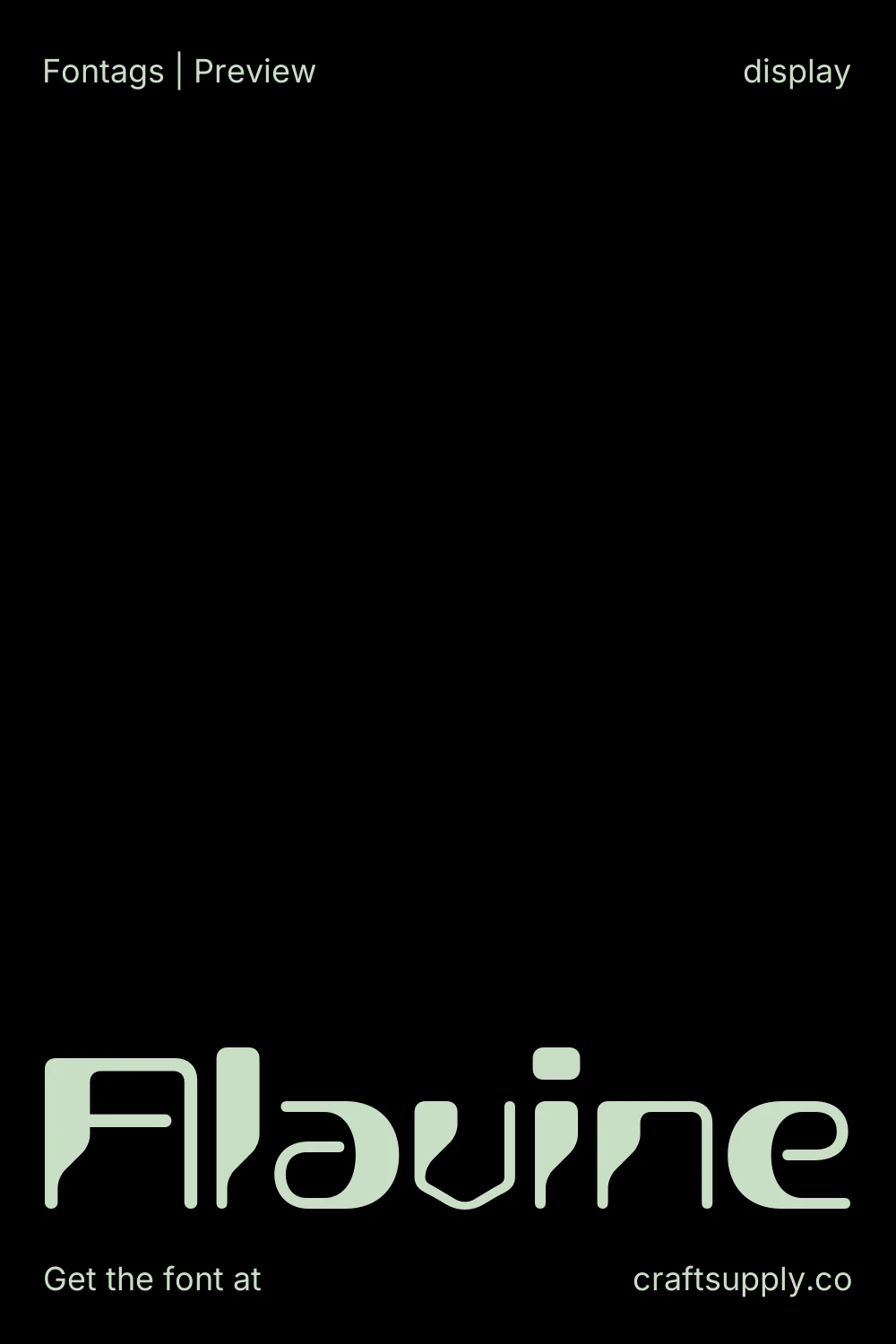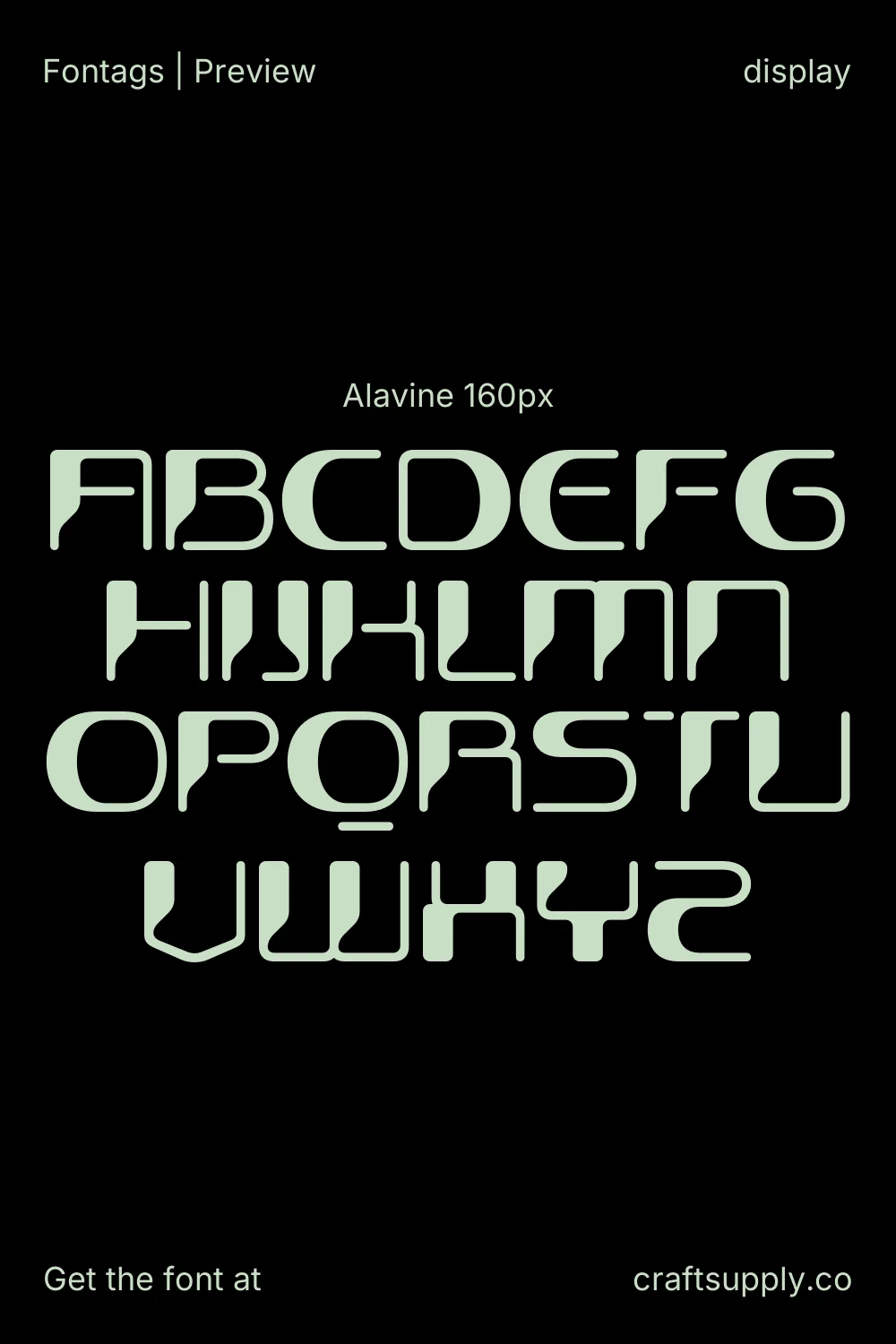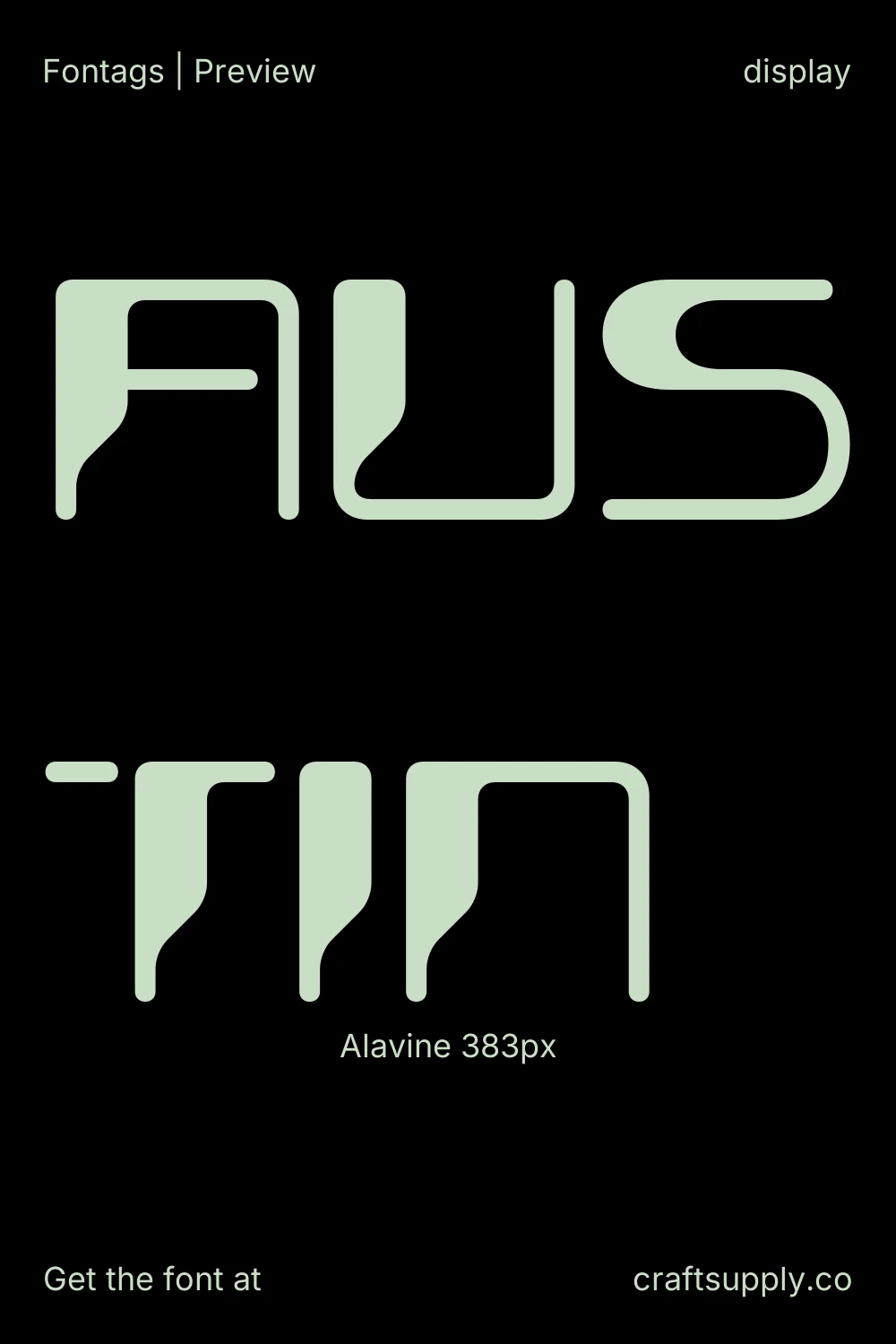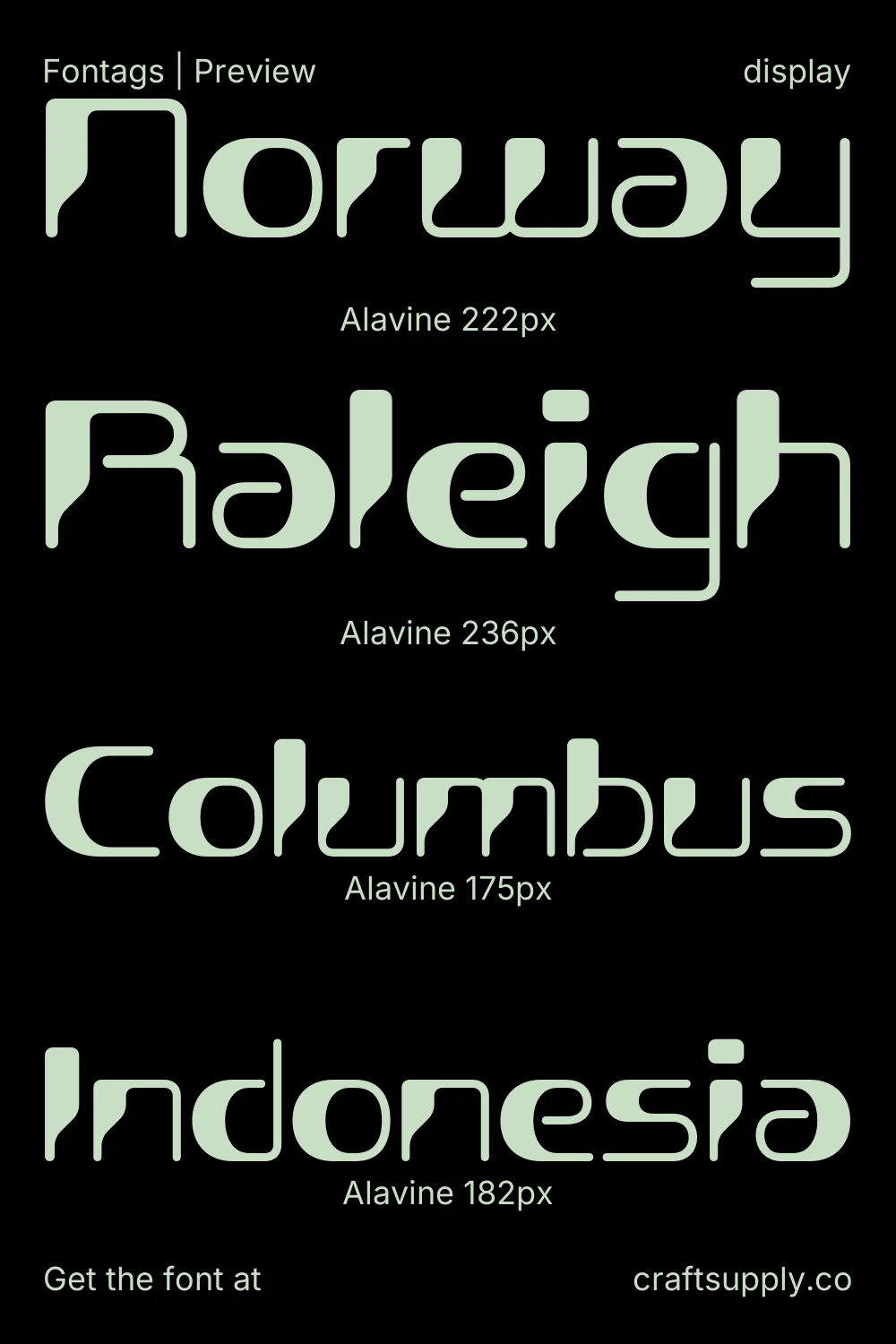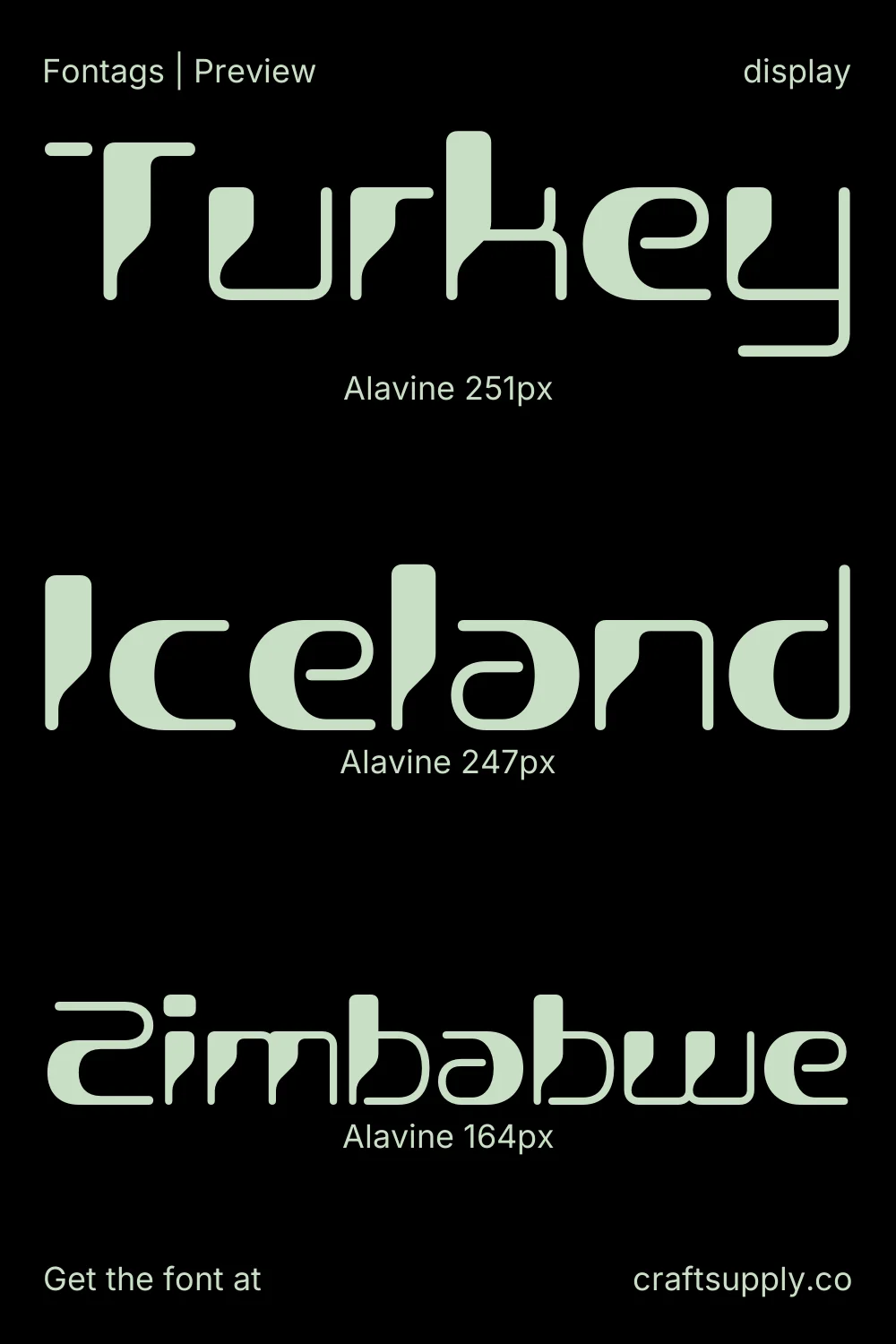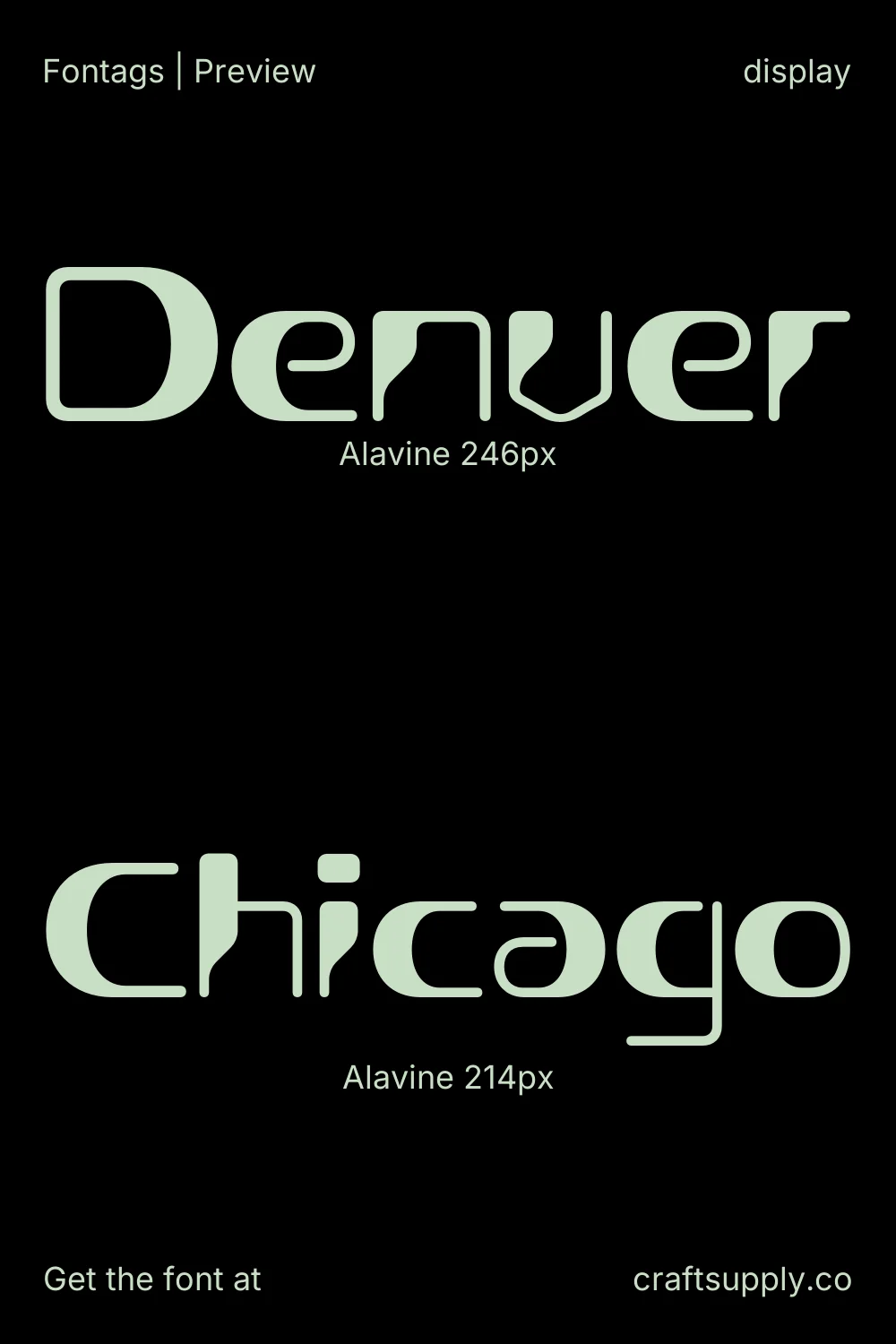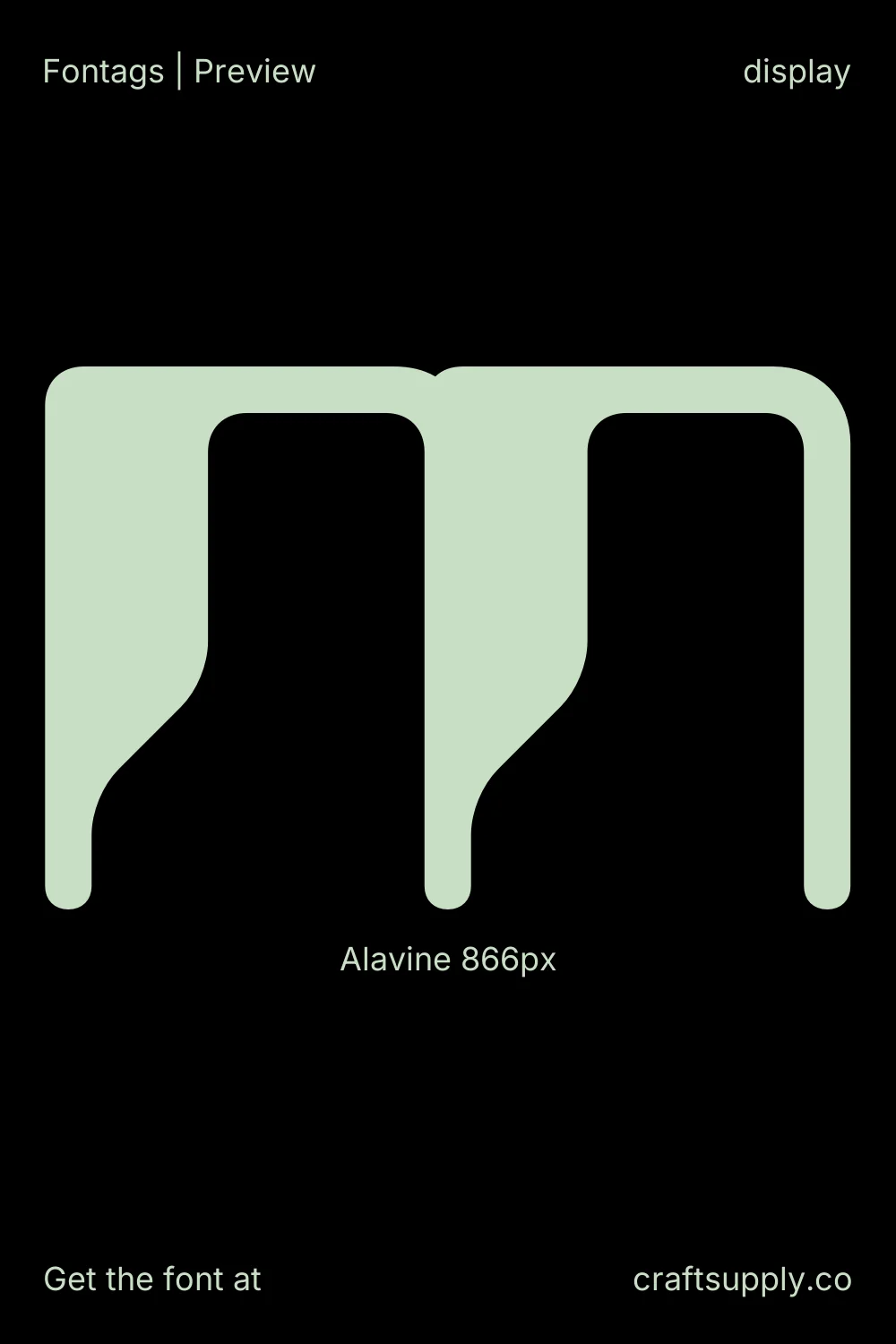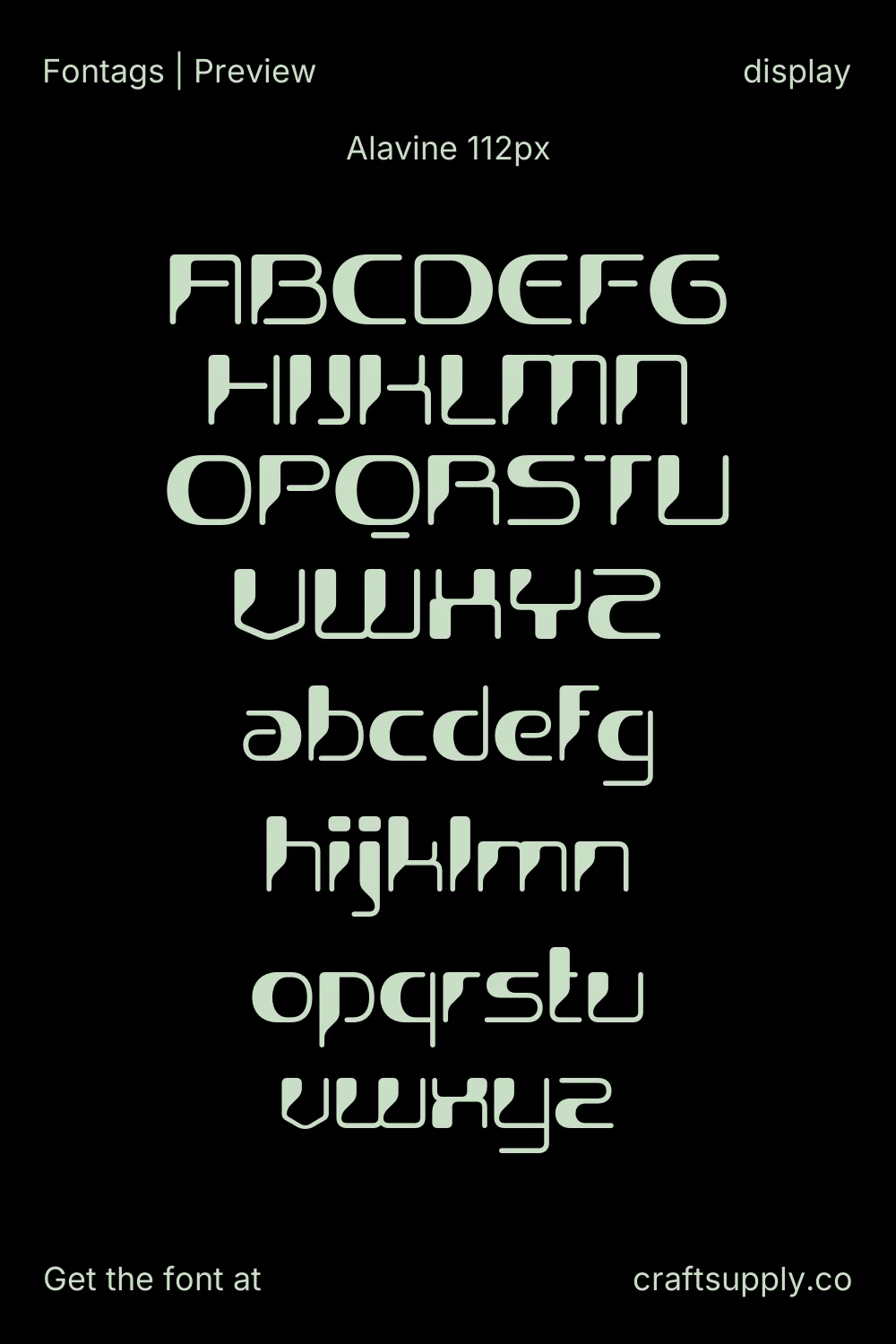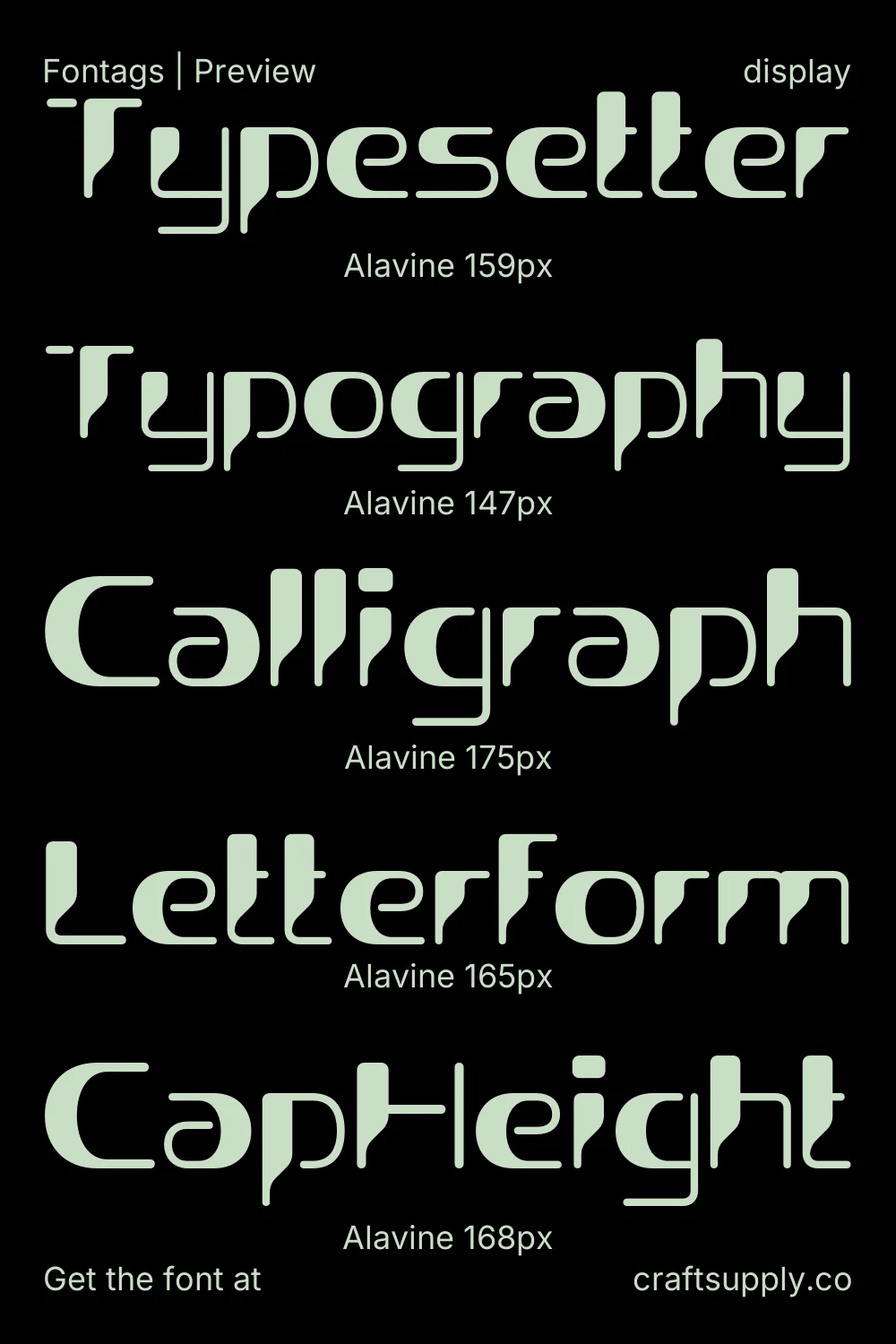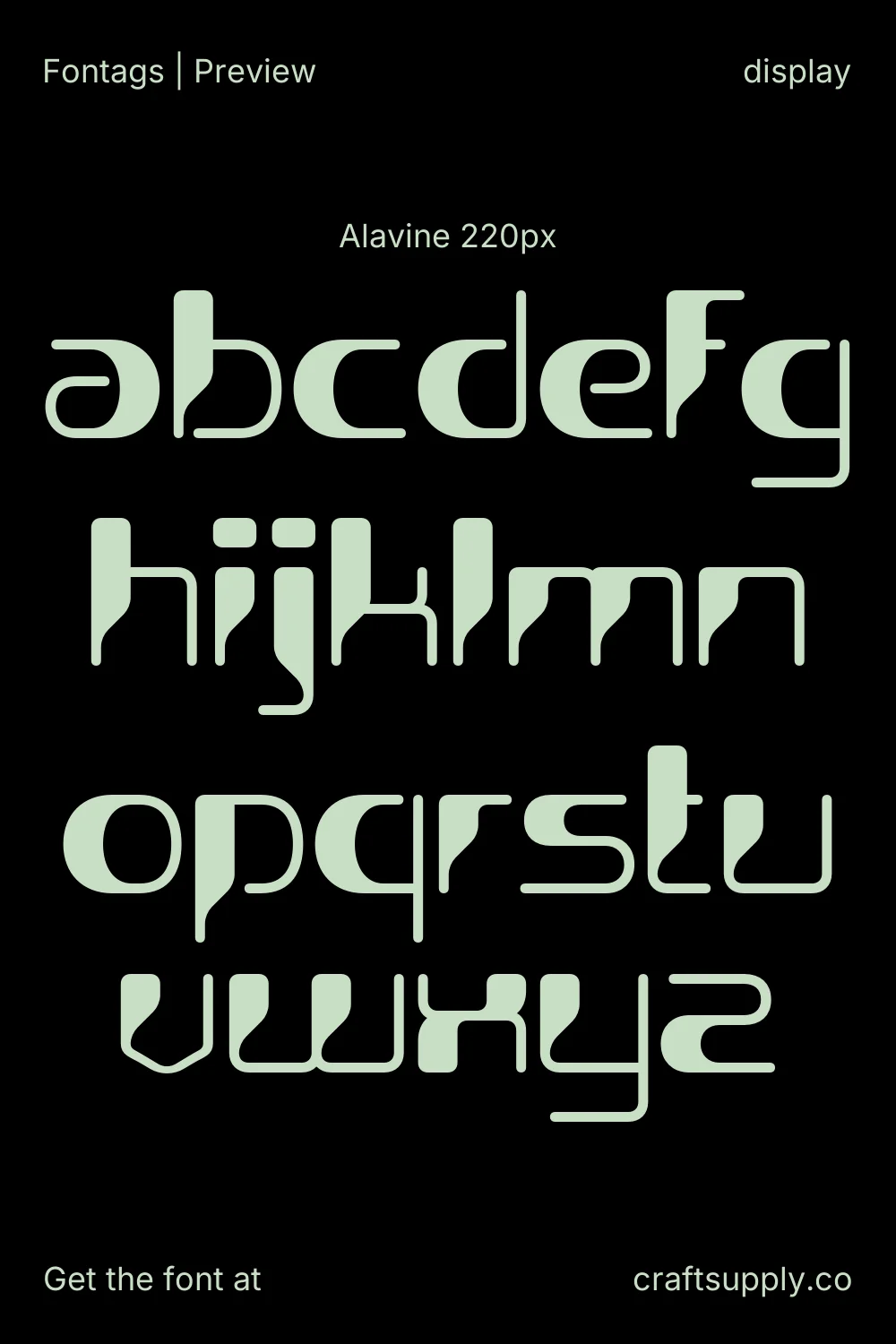
Alavine
Alavine is a sleek futuristic display typeface inspired by Y2K-era robotics and advanced technology. It features sharp geometric shapes, clean lines, and futuristic curves that convey innovation and sophistication. Ideal for tech branding, sci-fi posters, modern logos, and any project requiring a bold, forward-thinking aesthetic.